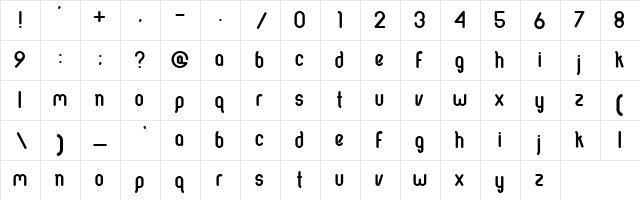
Bobel Regular
| Foundry | Christopher Pitney |
| Designer | Christopher Pitney |
Design Context for Bobel Typeface
Bobel takes a measured approach to typography — its balanced proportions and neutral character make it a reliable workhorse for both digital and print work.